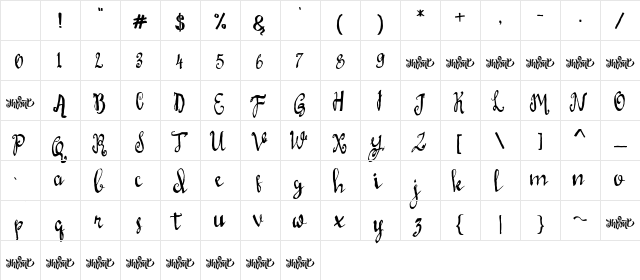
Love Mile flows with the natural rhythm of handwritten lettering, making it ideal for designs that call for warmth and personal expression.
Font Pairing: Combine Love Mile with a simple geometric sans for maximum contrast - the tension between flowing curves and clean structure is a classic typographic pairing.
Pro Tip: Use Love Mile for short runs of text - names, titles, or taglines. Extended body copy in script faces tires the eye quickly.